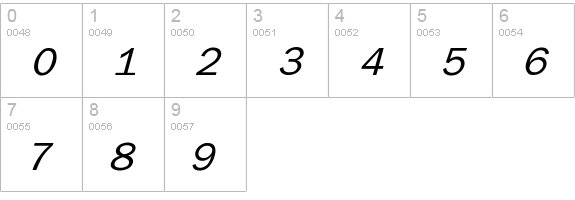
FranklinGothic Italic Font Details
FranklinGothic Italic is a distinctive, italic variant in the FranklinGothic typeface family \xE2\x80\x94 well suited to design and typography projects.
Franklin Gothic Italic is a sophisticated and elegant font that strikes the perfect balance between modernity and classic design. Its slanted style exudes a sense of dynamism and movement, making it ideal for adding a touch of flair to any project. The italicized characters of Franklin Gothic lend a sense of emphasis and refinement, making it perfect for conveying a sense of sophistication and style. What sets Franklin Gothic Italic apart is not just its striking design, but also the fact that it is available for free download at FontsMarket.com. This means that you can easily access this stylish font without any cost, making it a valuable addition to your font library. Whether you are working on a professional project, creating eye-catching designs, or simply looking to elevate your typography game, Franklin Gothic Italic is a versatile and timeless font that is sure to make a lasting impression. Download it today and let your creativity soar with this free and stylish font!